13 Handwritten Fonts for Authentic Branding
As a designer, I love using handwritten fonts to create brands that feel personal, approachable, and authentic. This collection of 13 handwritten fonts for authentic branding features typefaces I personally use to add warmth, character, and individuality to creative projects.
From natural signature styles to expressive handwritten lettering, each font was selected for its ability to bring a genuine human touch to a brand identity. These typefaces work beautifully for personal brands, small businesses, creative studios, lifestyle products, packaging, social media content, and boutique branding.
I believe the best typography helps tell a brand’s story, which is why I choose handwritten fonts that feel unique, memorable, and full of personality while maintaining a professional and polished look.
Beach Waves Duo Handwritten Font
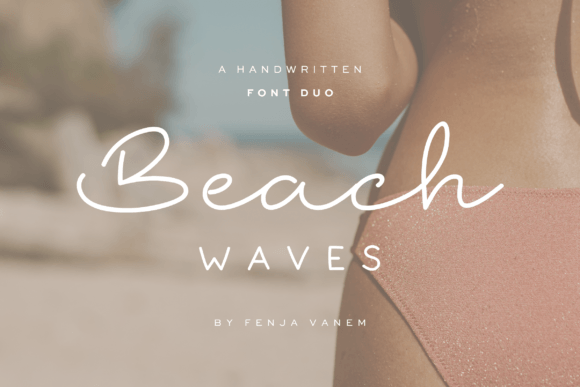
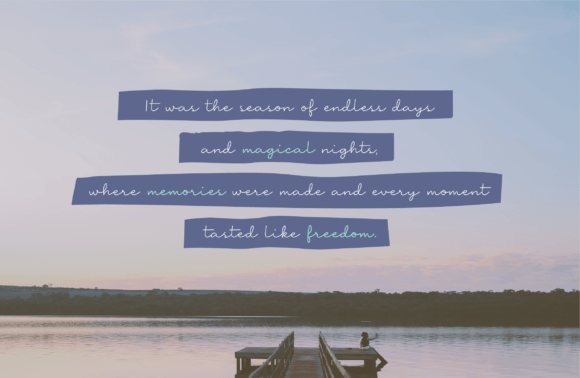
Beach Waves Font Duo is a beautifully crafted typeface pairing that combines the handwritten elegance of Tidelines with the hand-drawn simplicity of Seawashed. I love using it for coastal branding, wedding invitations, packaging, logos, social media graphics, and lifestyle projects because its ocean-inspired style feels both sophisticated and relaxed. The perfect blend of script and sans serif lettering creates a fresh, natural aesthetic that makes every design feel warm, stylish, and effortlessly memorable.
Handwriting Handwritten Font
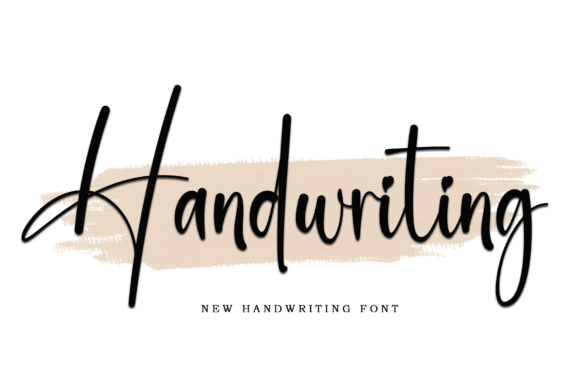
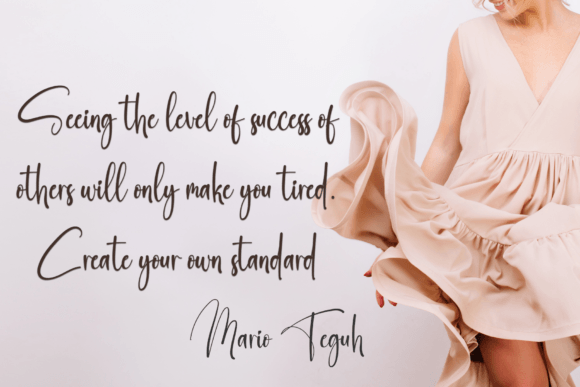
Handwriting Font is a modern handwritten typeface that blends simplicity with a clean, professional aesthetic. I enjoy using it for photography branding, watermarks, website design, logos, and social media graphics because its sleek lettering feels both personal and contemporary. The smooth handwritten style adds a creative and authentic touch, helping every design look polished, memorable, and visually engaging.
Artisan Signature Handwritten Font
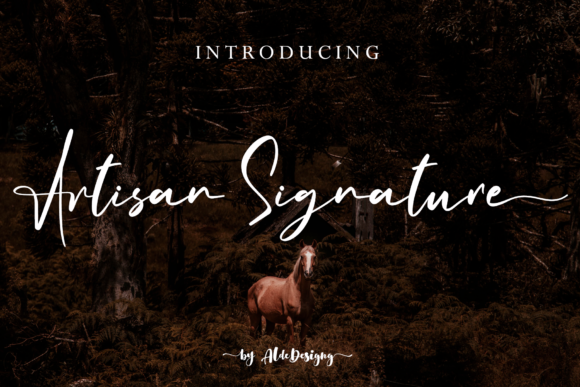
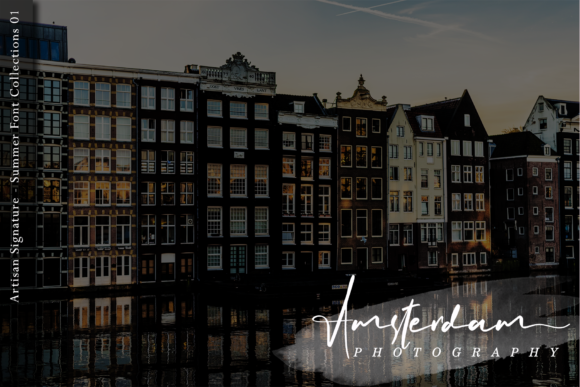
Artisan Signature is a beautiful handwritten font that combines light, elegant strokes with a sophisticated signature-style aesthetic. I love using it for branding, logos, wedding invitations, packaging, social media graphics, and luxury stationery because its refined lettering feels both personal and premium. The graceful handwritten character adds a touch of exclusivity and charm, making every design look polished, stylish, and effortlessly elegant.
Handwriting Handwritten Font
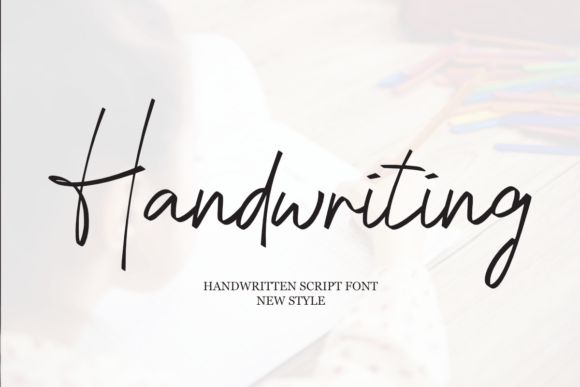
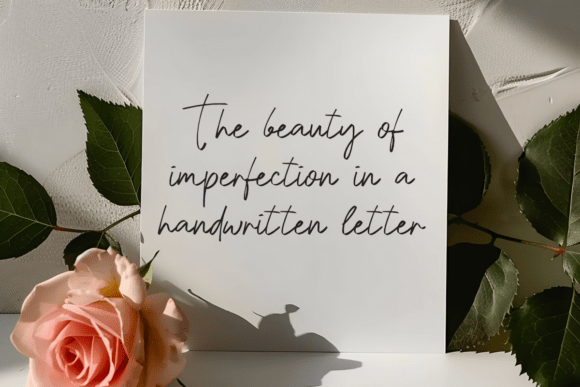
Handwriting is a sweet cursive font that adds warmth, elegance, and a personal touch to any design. I enjoy using it for branding, logos, wedding stationery, greeting cards, fashion projects, marketing materials, and social media graphics because its flowing handwritten style feels both romantic and approachable. The graceful curves and casual sophistication create a charming aesthetic that makes every design look stylish, heartfelt, and beautifully crafted.
Simple Handwriting Handwritten Font
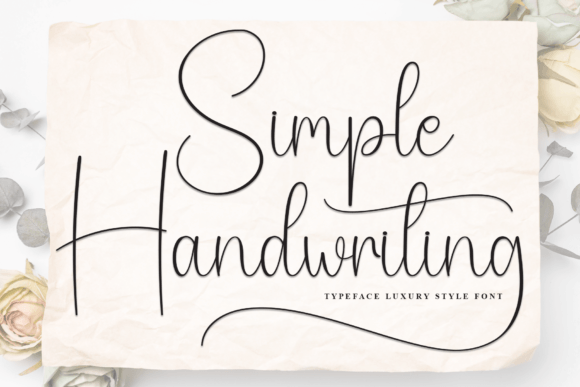
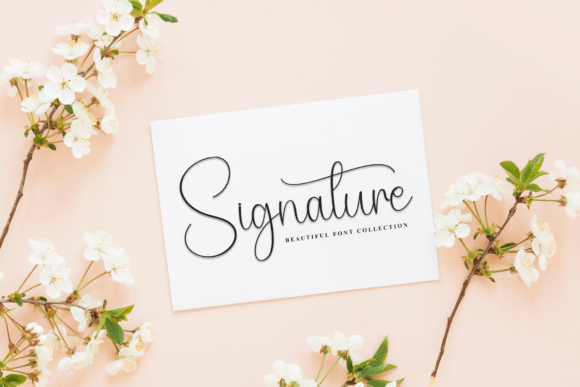
Simple Handwriting is an elegant script font that brings a refined handwritten touch to any creative project. I enjoy using it for wedding invitations, thank you cards, greeting cards, logos, business cards, branding, and inspirational quotes because its graceful lettering feels both sophisticated and personal. The smooth flowing strokes create a timeless aesthetic that makes every design look polished, charming, and beautifully handcrafted.
Writing Signature Handwritten Font
Writing Signature is an authentic handwritten font that combines simplicity with a natural personal touch. I love using it for logos, branding, t-shirt designs, greeting cards, quotes, and social media graphics because its clean handwritten style feels genuine and versatile. The smooth strokes and signature-inspired lettering create a modern, creative look that makes every design feel unique, approachable, and full of character.
Lilac and Linen Handwritten Font
Lilac and Linen is a chic handwritten monoline script font featuring clean, flowing lines for a natural and elegant look. With automatic ligatures and stylistic alternates, it mimics authentic handwriting beautifully. Perfect for product and pantry labels, stickers, branding, social media posts, quotes, and modern creative projects, it adds a refined and stylish touch to any design.
Juliantine Handwritten Font
Juliantine is an elegant handwritten font that combines flowing strokes with a graceful and sophisticated style. I enjoy using it for wedding invitations, branding, logos, greeting cards, packaging, and social media graphics because its smooth lettering feels romantic and refined. The delicate curves and natural handwritten character create a timeless aesthetic that makes every design look stylish, personal, and beautifully crafted.
Embrace the Blush Handwritten Font
Handmade Signature Handwritten Font
Handmade Signature is an elegant handwritten font that beautifully mimics the look of a personal signature. With its graceful strokes and stylish flair, it adds a sophisticated and authentic touch to any design. Perfect for logos, branding, signatures, social media, invitations, and creative projects, Handmade Signature enhances your work with a refined and personalized handcrafted feel.